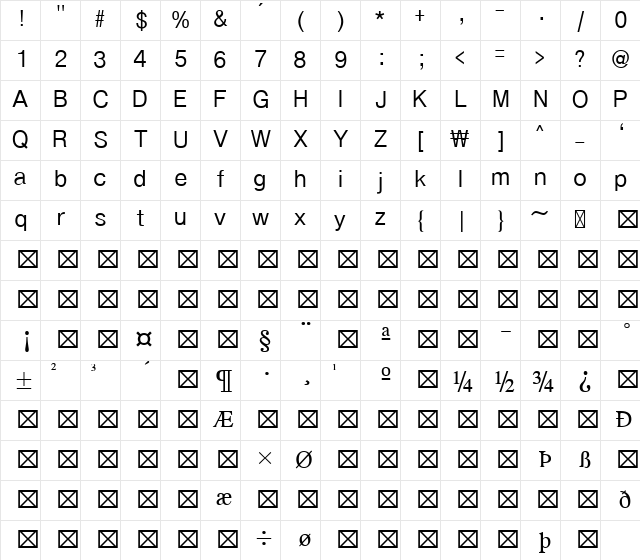
8̴ Regular
Design Context for 8̴
8̴ is a composed and adaptable typeface that performs quietly and consistently across a wide range of design contexts.